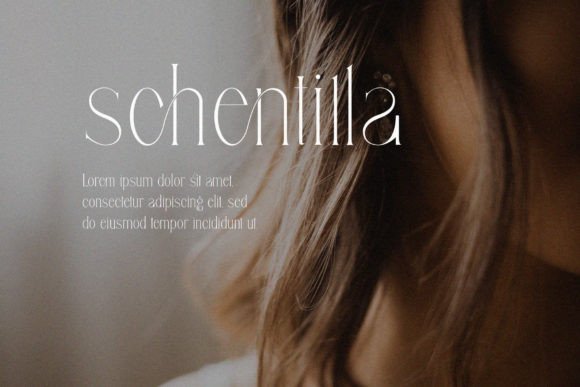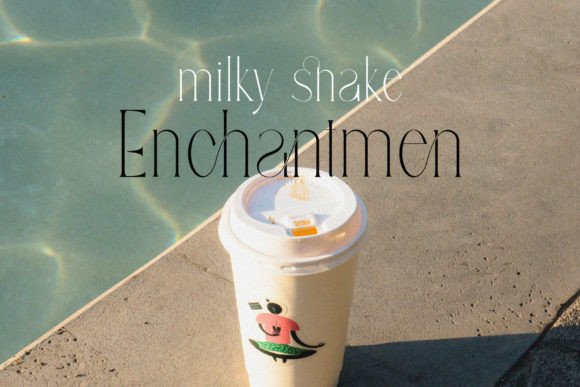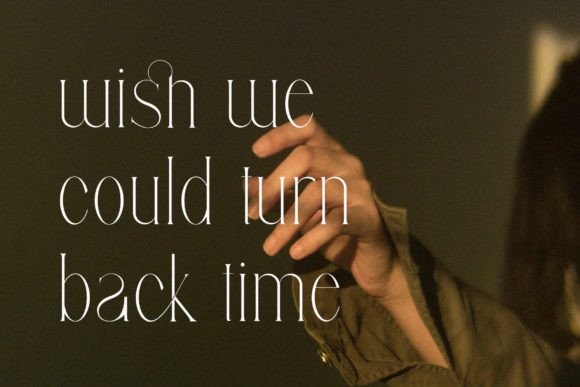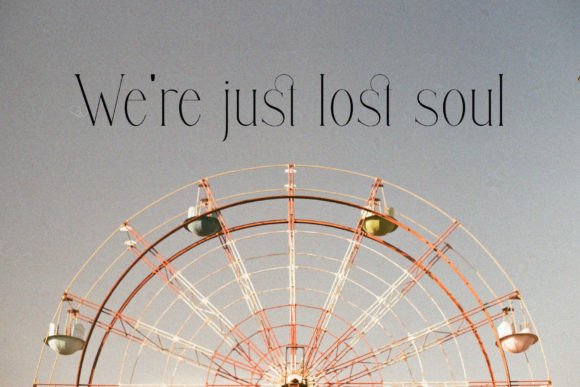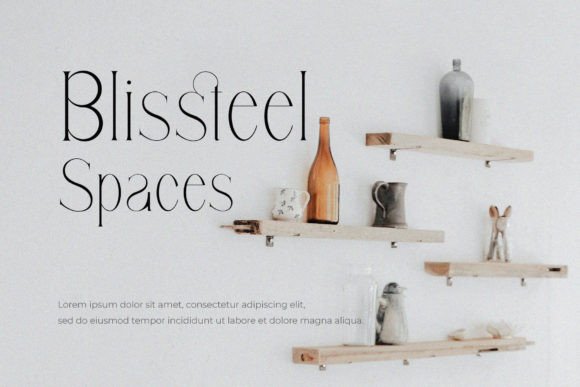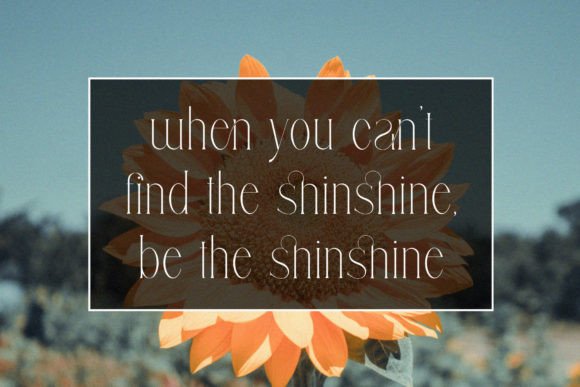
Gllifan Font: Elevate Your Designs with Elegance and Sophistication
Are you searching for a font that exudes elegance, class, and modernity? Look no further than the Gllifan Font, a stunning serif typeface that is both contemporary and nostalgic. This versatile font is perfect for designers and crafters who want to add a touch of sophistication to their designs, whether it’s for logos, magazines, social media, or any other creative project.
The Perfect Blend of Modern and Classic
Gllifan Font is a masterful blend of modern and classic design elements, making it an ideal choice for designers who want to create something truly unique and eye-catching. The font’s sleek lines, precise curves, and refined details create a sense of luxury and refinement, perfect for high-end brands, editorials, and creative projects.
Key Features of Gllifan Font
- Elegant and Classy Design: Gllifan Font boasts an elegant and classy design that is sure to elevate your designs and make them stand out from the crowd.
- Modern and Nostalgic: This font seamlessly blends modern and nostalgic elements, making it perfect for designers who want to create something fresh and timeless.
- Versatile and Adaptable: Gllifan Font works great for a wide range of design applications, including logos, magazines, social media, and more.
- Already Matched Up: The font comes with a range of matching styles, making it easy to create a cohesive and harmonious design.
Why Choose Gllifan Font?
There are many reasons why Gllifan Font is an excellent choice for designers and crafters. Here are just a few:
- Unique and Eye-Catching: Gllifan Font is a one-of-a-kind typeface that is sure to grab attention and make your designs stand out.
- High-Quality Design: Gllifan Font is designed with precision and attention to detail, ensuring a high-quality design that will impress your clients and audience.
Gllifan Font is perfect for designers and crafters who want to add a touch of elegance and sophistication to their designs. Whether you’re working on a logo, magazine, social media post, or any other creative project, this font is sure to impress. Here are some design ideas to get you started:
- Logos and Branding: Use Gllifan Font to create a luxurious and refined logo that reflects your brand’s values and personality.
- Magazines and Editorials: Add a touch of elegance to your magazine or editorial design with Gllifan Font’s classic and sophisticated style.
- Social Media Graphics: Create eye-catching social media graphics with Gllifan Font’s modern and adaptable design.
In conclusion, Gllifan Font is an exceptional serif typeface that offers a unique blend of elegance, class, and modernity. With its versatile design, precise curves, and refined details, this font is perfect for designers and crafters who want to create something truly special. Whether you’re working on a logo, magazine, social media post, or any other creative project, Gllifan Font is sure to elevate your designs and make them stand out from the crowd.